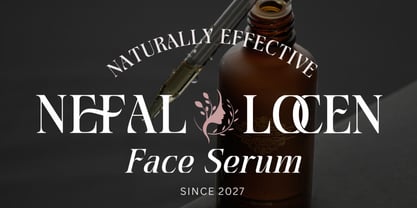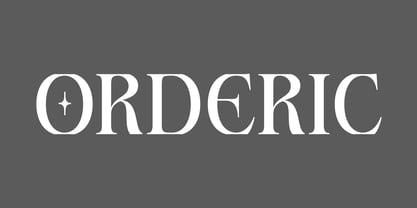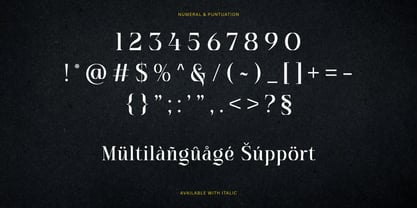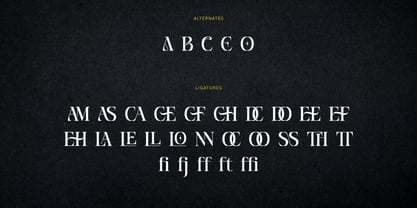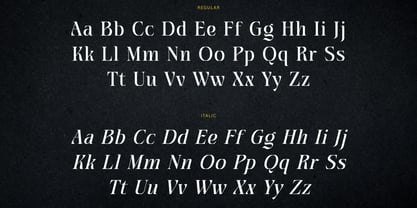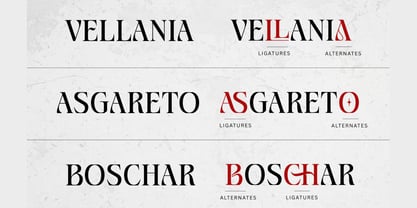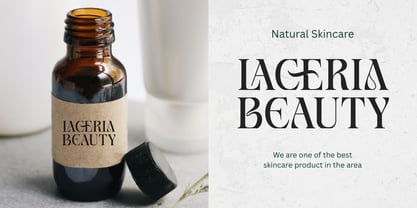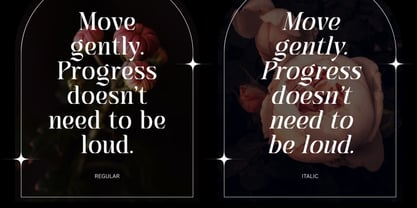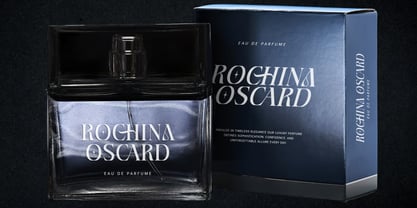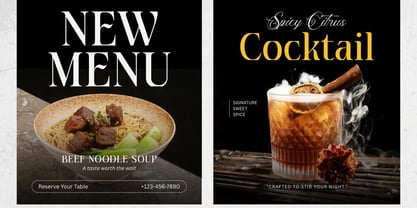
Orderic
Orderic is a bold and refined serif display font crafted to radiate elegance, confidence, and timeless sophistication. Featuring strong contrast, sharp serifs, and beautifully styled curves, Orderic creates a powerful typographic presence that instantly captures attention while maintaining a polished and luxurious aesthetic.
Designed for high-impact typography, Orderic combines the classic beauty of traditional serif fonts with a modern editorial edge. Its bold structure makes it especially effective for headlines, logos, magazine covers, fashion branding, advertising campaigns, and premium visual identities. Whether used in large display text or sophisticated branding compositions, Orderic brings a distinctive sense of authority and refinement to every design.
With its elegant alternates, stylish ligatures, and versatile Regular & Italic styles, Orderic gives designers the creative flexibility needed to build memorable and professional typography across print and digital projects.
Key Features:
• Bold Serif Display Design: Strong and sophisticated letterforms designed for maximum visual impact.
• Sharp Refined Serifs: Distinctive serif details add elegance, structure, and timeless character.
• High-Contrast Typography: Dramatic stroke contrast creates a luxurious editorial appearance.
• Regular & Italic Styles: Flexible styles for headlines, branding, and expressive typography.
• Stylish Alternates: Alternative characters for creating unique and personalized designs.
• Beautiful Ligatures: Carefully crafted letter combinations for a sophisticated typographic finish.
• Numerals & Punctuation: Complete essential character set for professional design projects.
• Multilingual Support: Designed to support a wider range of languages and creative projects.
Perfect For:
• Luxury Branding & Logo Design: Create prestigious, memorable, and sophisticated brand identities.
• Fashion & Editorial Design: Perfect for fashion magazines, lookbooks, campaigns, and headlines.
• Magazine Covers: Make titles and cover typography stand out with a bold editorial presence.
• Advertising & Campaigns: Ideal for premium advertisements, promotional graphics, and marketing materials.
• Book Covers & Publishing: Add sophistication and dramatic visual impact to literary designs.
• Luxury Packaging: Perfect for perfumes, cosmetics, jewelry, skincare, and premium products.
• Wedding Stationery: Bring elegance and timeless beauty to invitations, menus, and event materials.
• Social Media Design: Create high-end posts, quotes, promotional graphics, and branded content.
Elevate your designs with Orderic—a bold refined serif display font featuring sharp serifs, high-contrast strokes, elegant curves, stylish alternates, and sophisticated ligatures. Perfect for luxury branding, fashion editorials, magazine covers, logos, packaging, advertising, wedding stationery, and premium visual identities that demand attention, confidence, and timeless elegance.